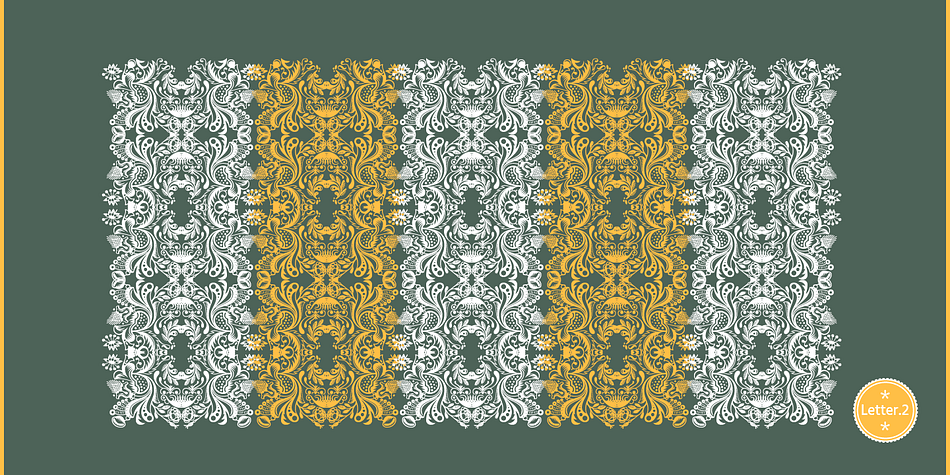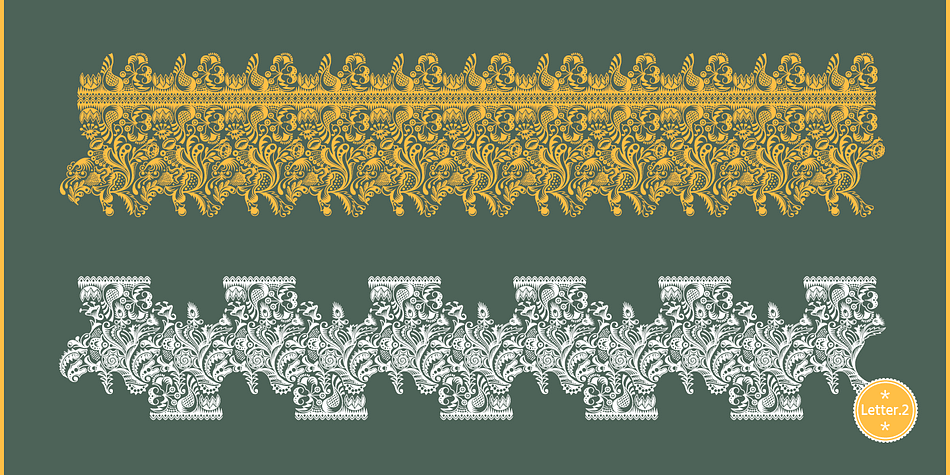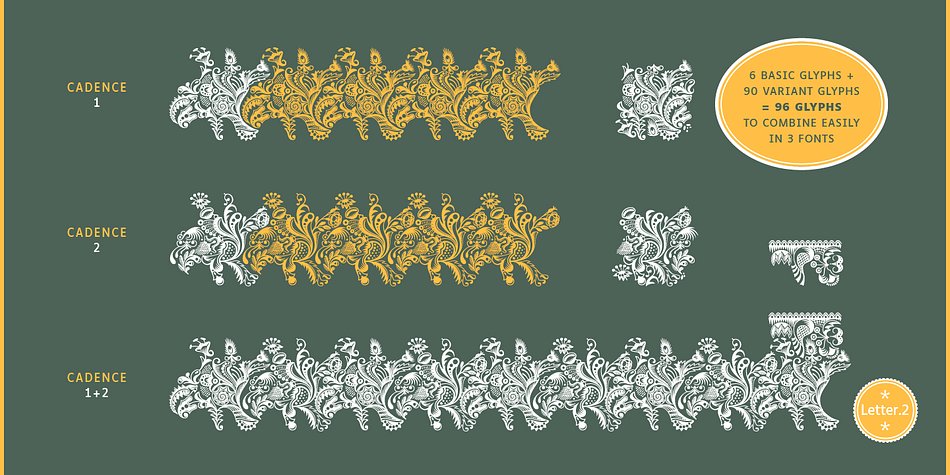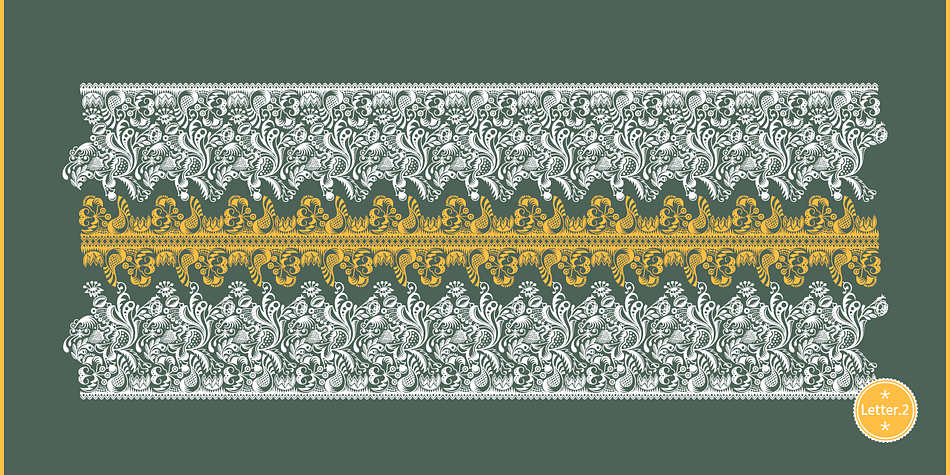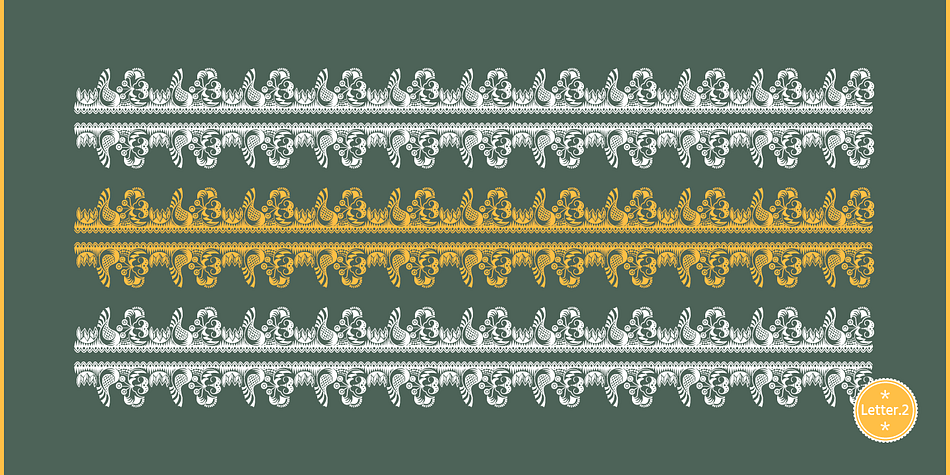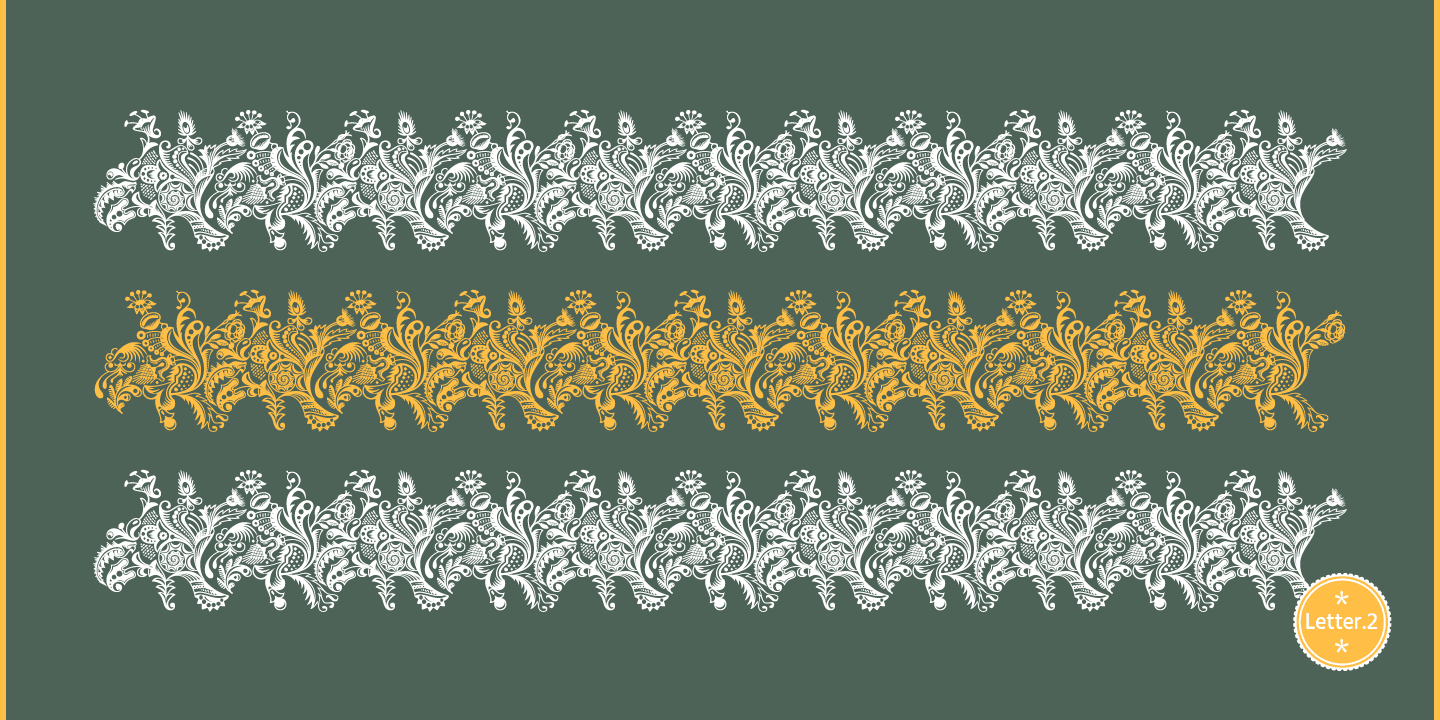
Cadence is a dingbat font family. This typeface has three styles and was published by typographies.fr.
Award:
Laureate of the Type Design Competition Letter.2 of the ATypI
This character is a revival of an ornamental metal type font, which comes from a type specimen of the French typefoundry Jules Didot printed in 1842 (Spécimen de la nouvelle fonderie de Jules Didot l’ainé - boulevard d’Enfer, n°4, à Paris. - Paris - imprimé par Béthune et Plon, rue de Vaugirard, n°36 - 1842).
Designer
Jonathan Fabreguettes (Revival)